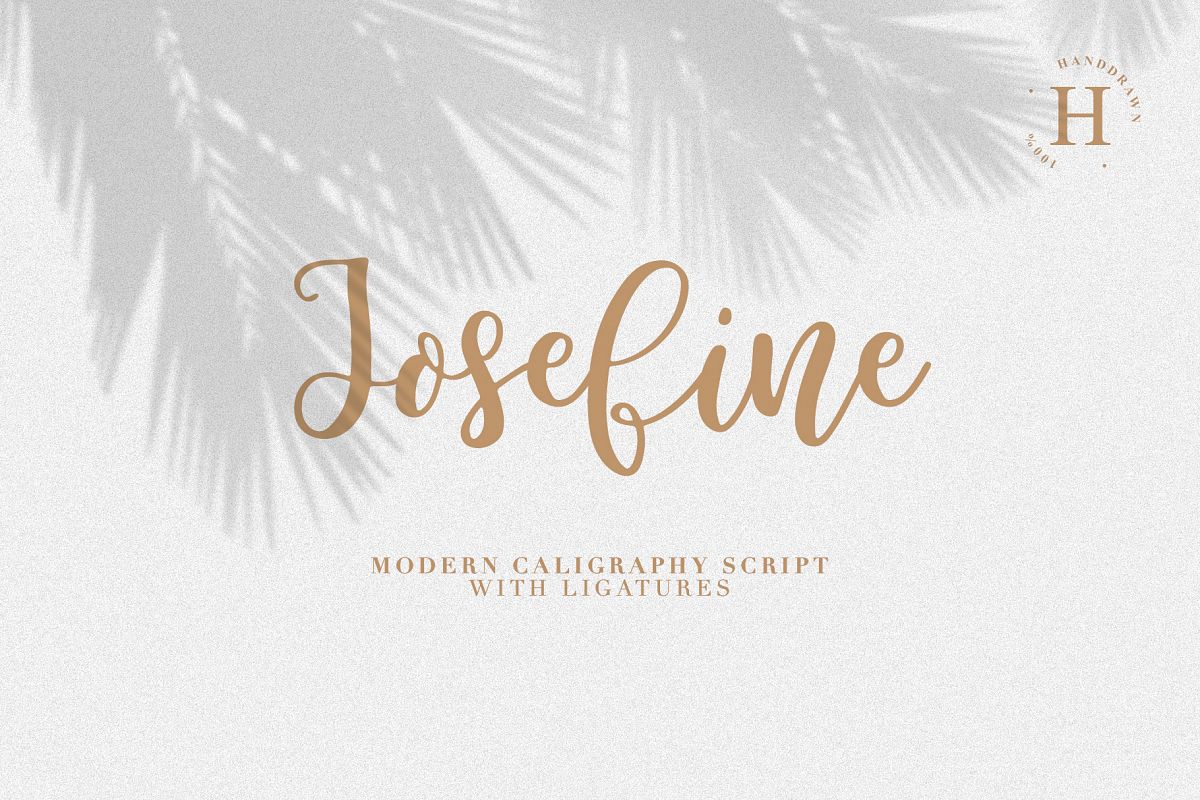
JOSEFINE handwritten font
Hello, friends. This is my new font, classic calligraphy. The font is super versatile and suitable for any project. You want to post on instagram? The menu in the cafe? A banner or sign on the website? IT'S EASY